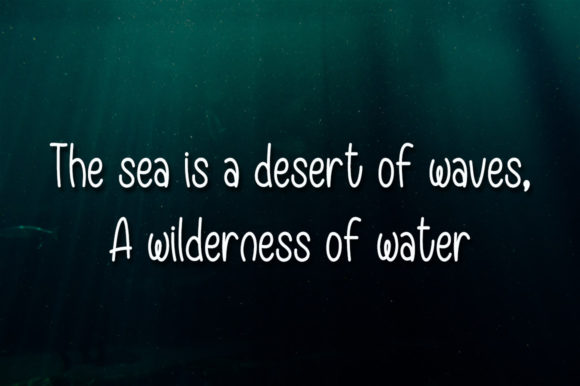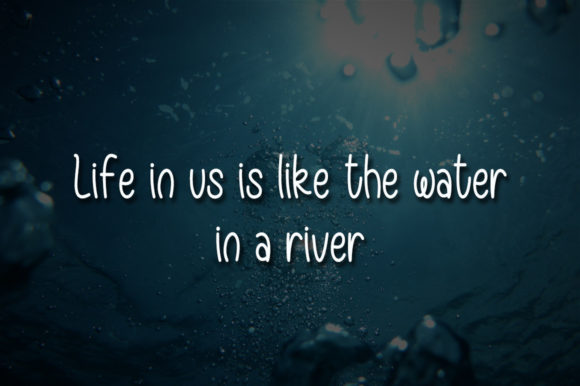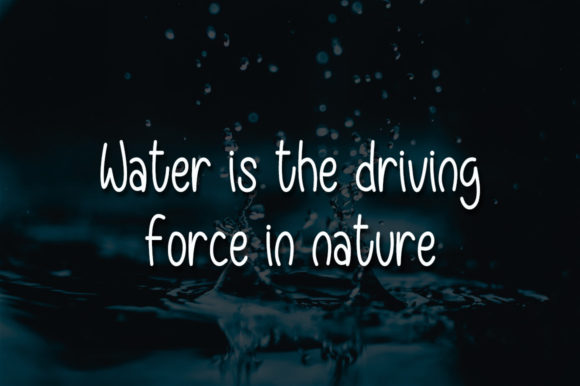
Introduction to Like Water Font
Like Water is a simple and friendly handwritten font.
It has an authentic, modern look, and is the perfect choice for branding and digital designs Use this font for your designs and explore its endless possibilities.
Key Features of Like Water Font
Why Choose Like Water Font?